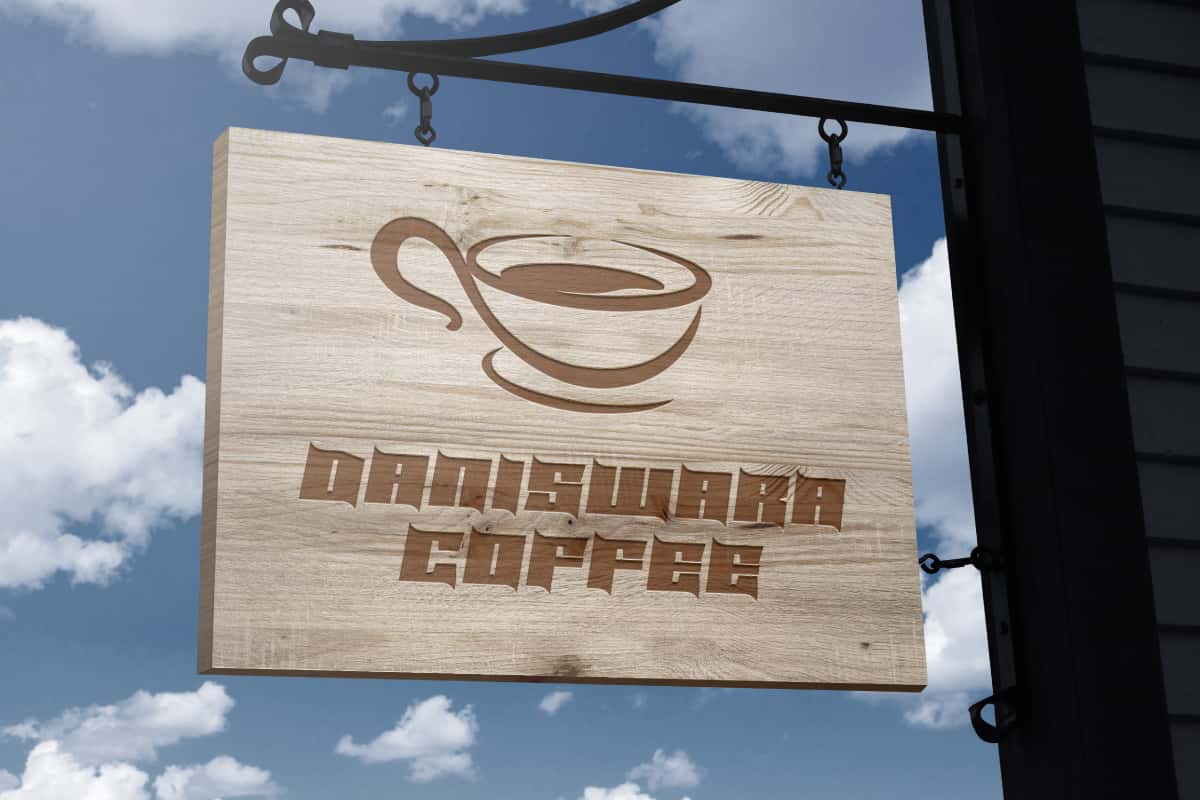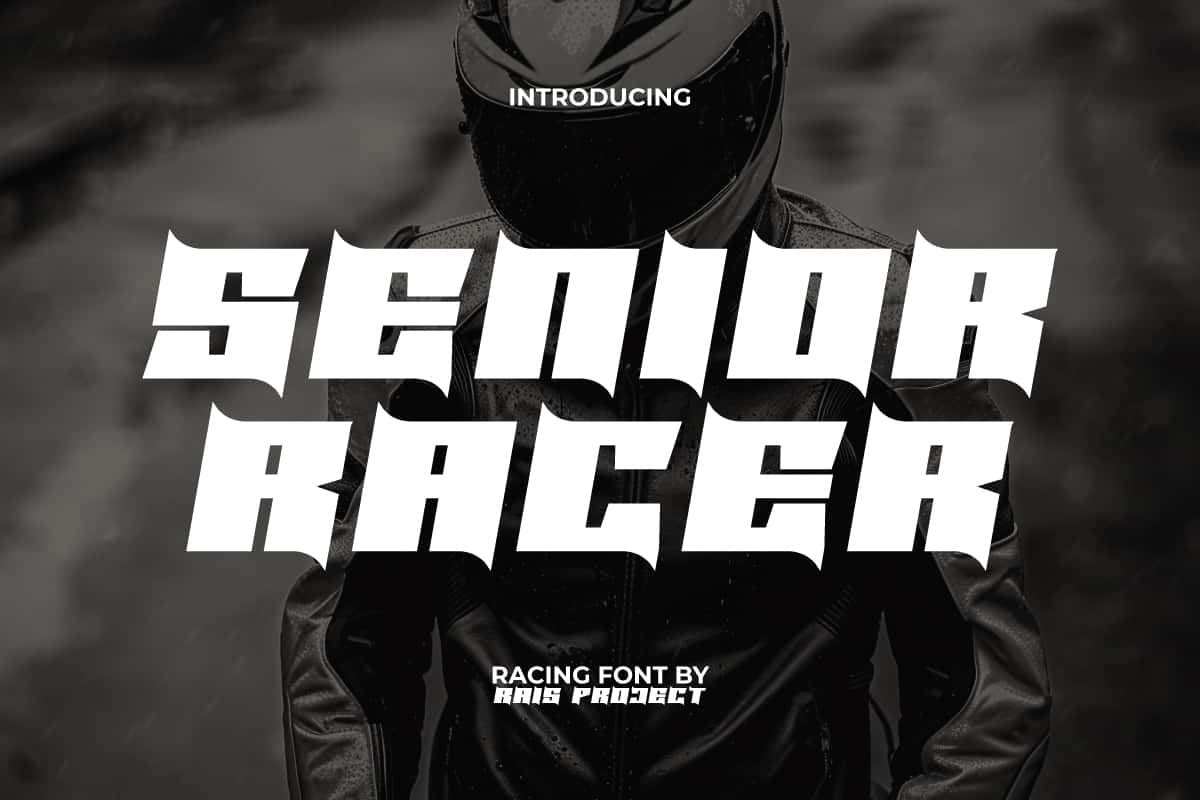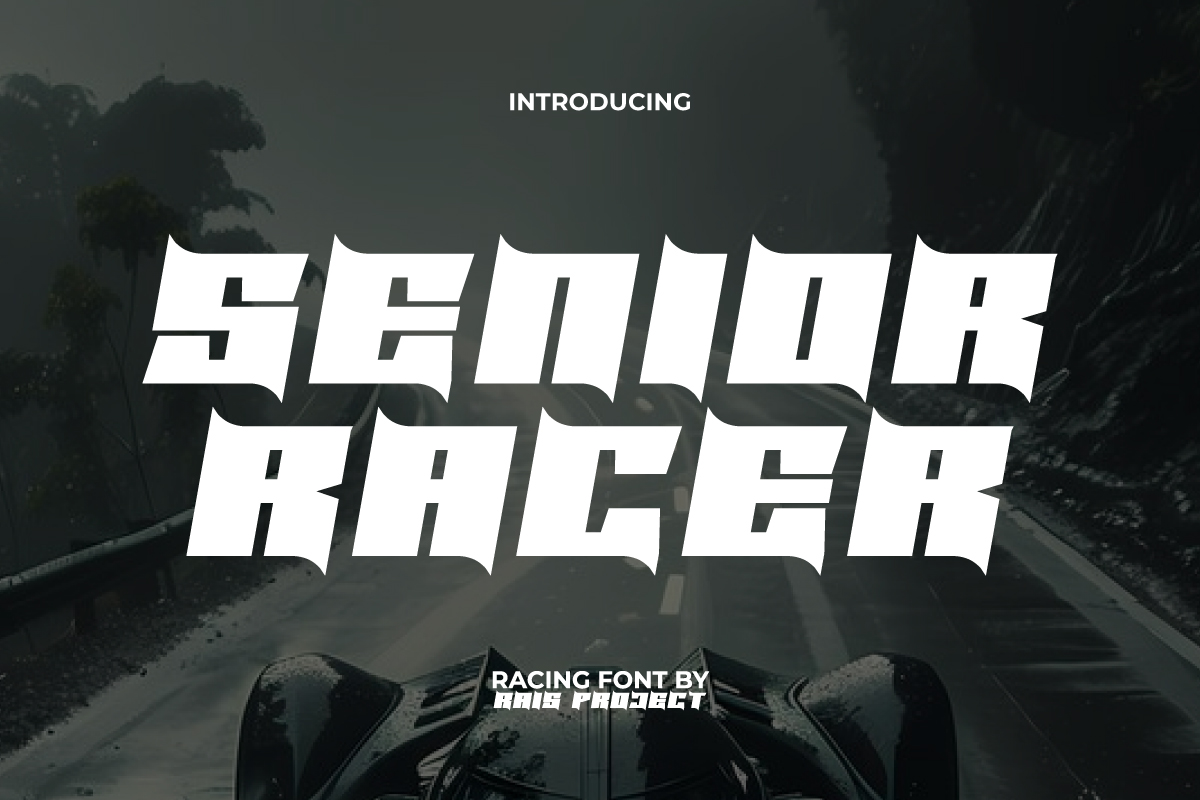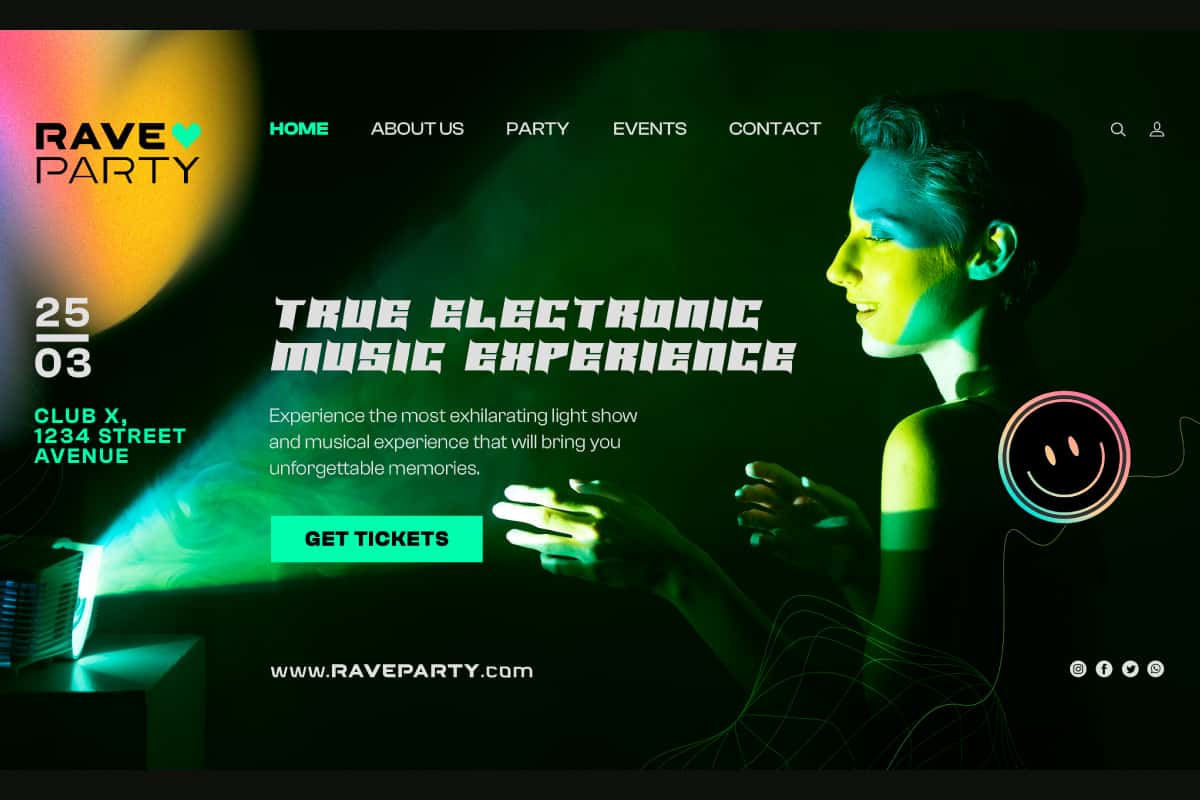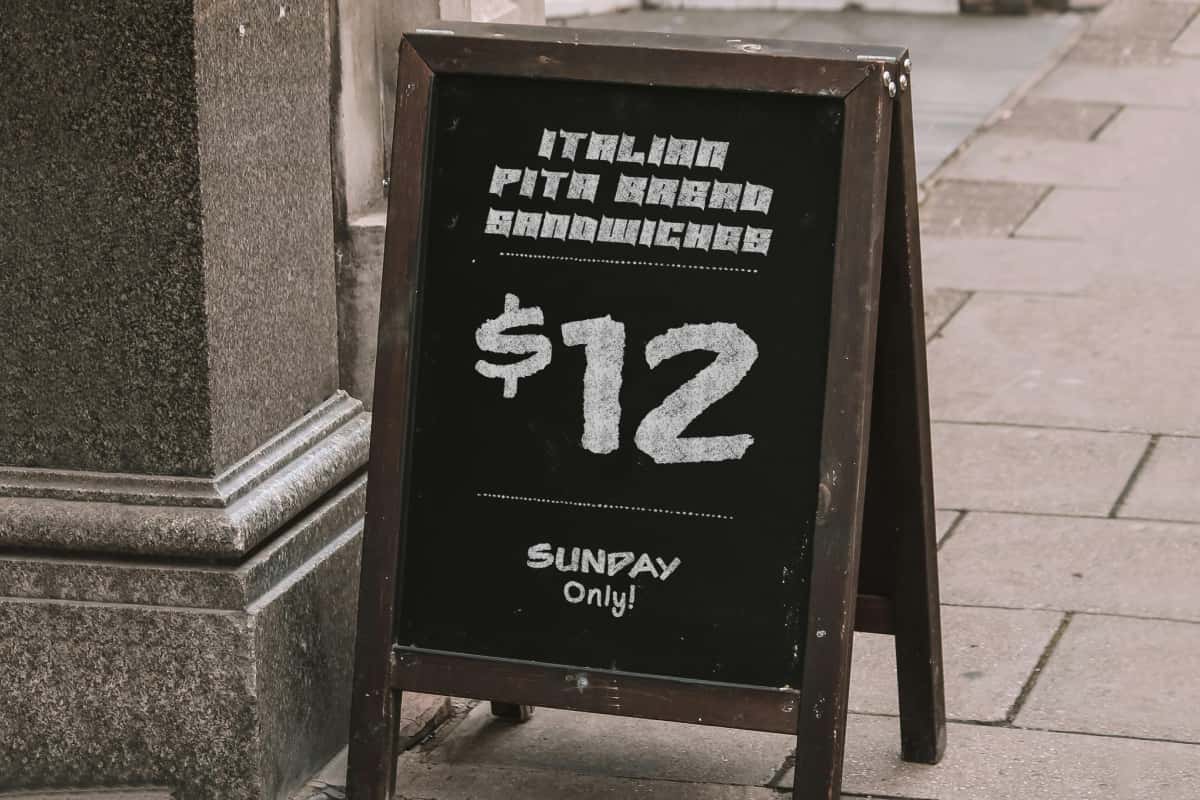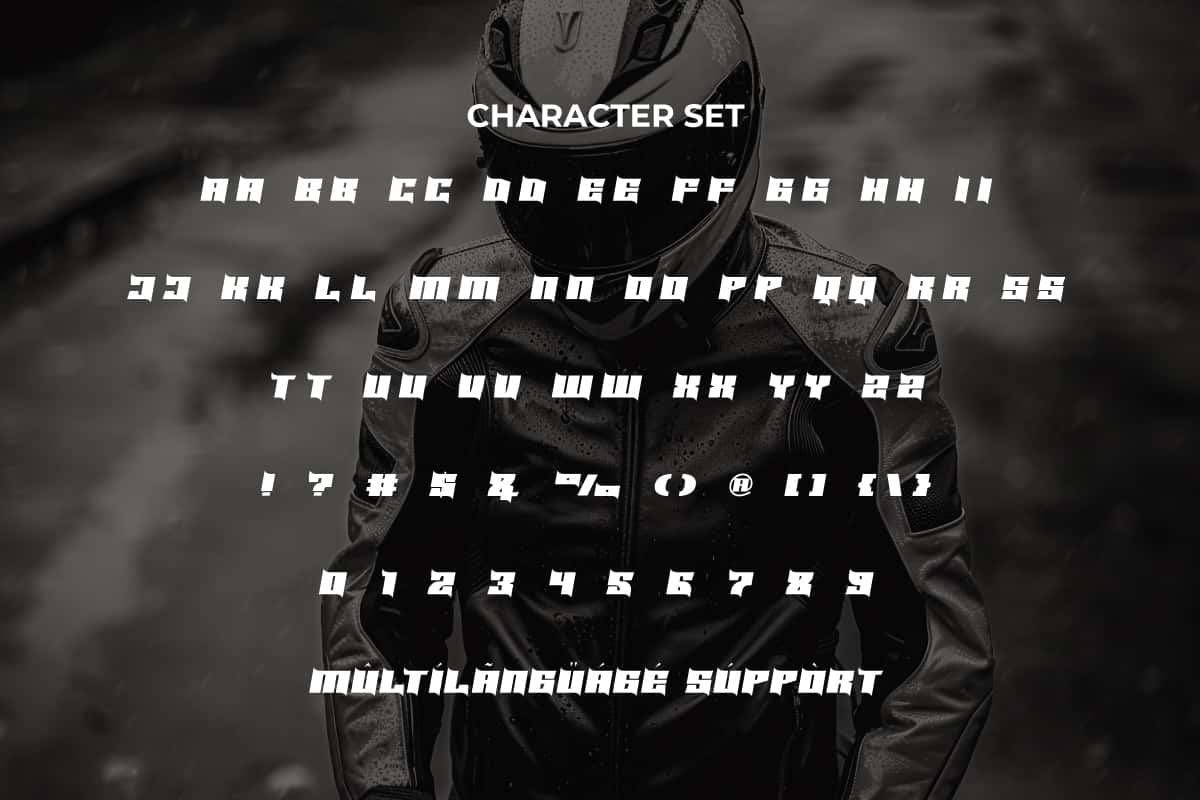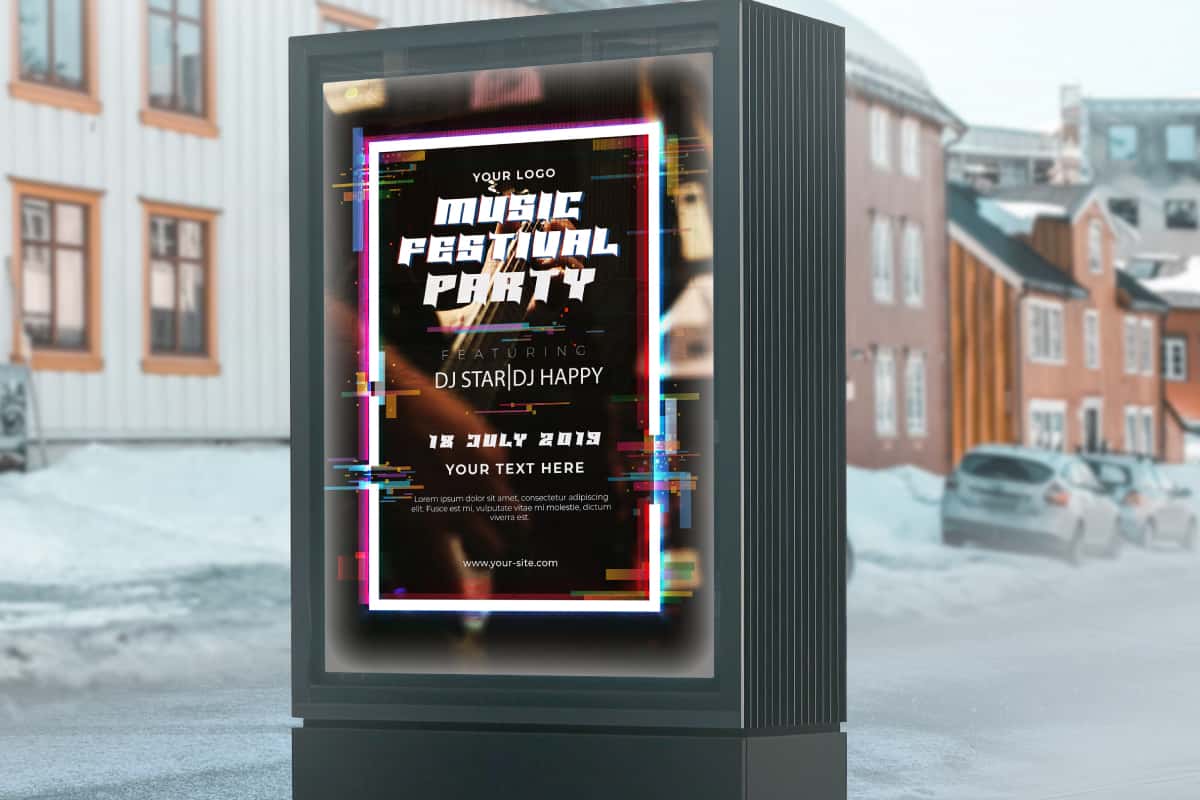
Senior Racer Font
Senior Racer Font is a racing font with a stylish and bold concept to make your design different from the others!
Senior Racer Font is a bold racing font to make your designs standout, by RaisProject. This font looks attractive with its bold, slightly slanted characters, and has sharp lines on the edges of the lines. It will be great for custom design, poster, label, signage, stationery, product packaging, quotes, brand image, advertisement, invitation, marketing material, website page, and more!
Senior Racer Font includes a full set of ALL CAPS for Uppercase and Lowercase Letters, Numerals, and large range of Punctuation. This cool font will be suitable for various industries, such as sports, automotive, fashion, game, barber shop, cafe, event or festival, photography, printing, publishing, etc.